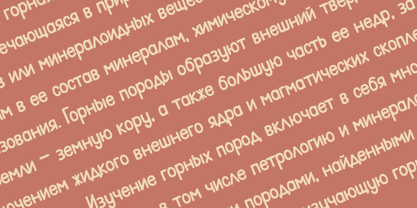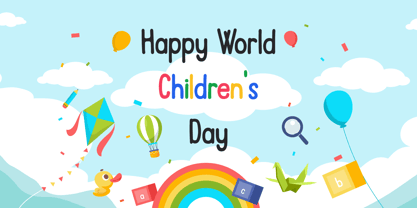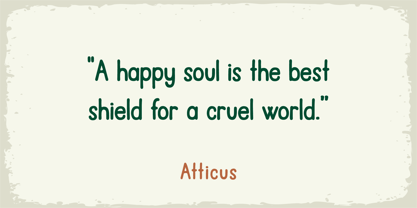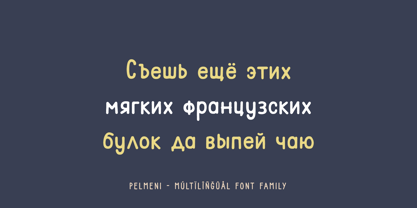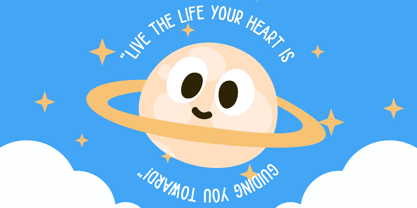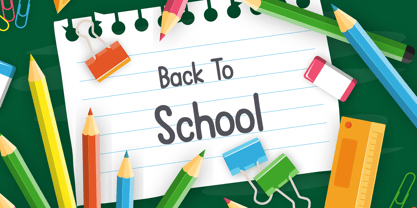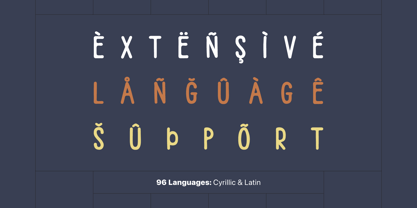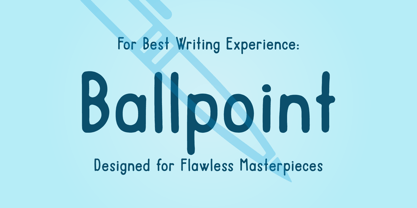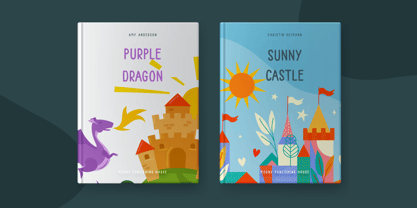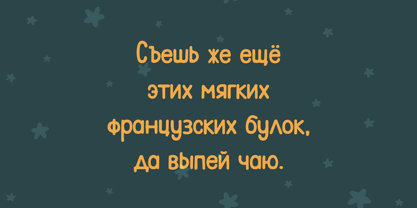
Pelmeni
Pelmeni is a meticulously crafted, handmade font known for its charming handwritten style and exceptional kerning, making it a perfect choice for both digital and print projects. With full support for the Cyrillic language and its unique square style, Pelmeni enables seamless communication across diverse languages, adding versatility to your designs.
What sets Pelmeni apart is its fusion of classic proportions and contemporary flair, creating a distinctive look that stands out among other display fonts. Whether used for branding, headlines, or creative projects, Pelmeni adds a touch of elegance and character to your text.
Notably, Pelmeni supports a wide range of languages, including Russian, Afrikaans, Albanian, Basque, Dutch, English, French, German, Italian, Portuguese, Spanish, Swedish, Turkish, and many more. This extensive language support ensures that your message can reach global audiences with ease and clarity.
In summary, Pelmeni offers:
• Handmade, handwritten charm with excellent kerning
• Full support for the Cyrillic language and seamless multilingual communication
• Unique square style combining classic and contemporary elements
• Extensive language support, covering 68 languages for global accessibility and impact.
Elevate your designs with Pelmeni and experience the perfect blend of style, functionality, and global reach in your typography.